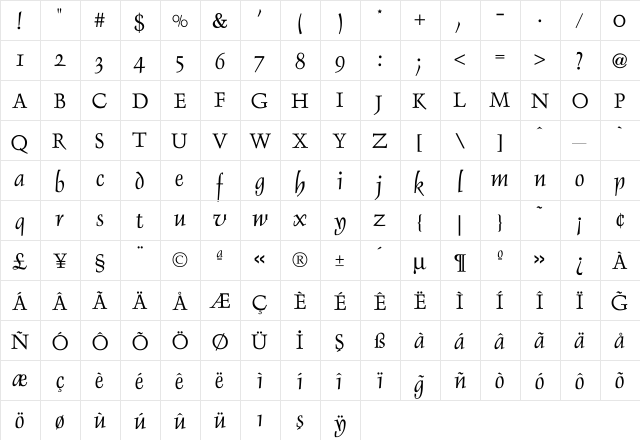
TrSah Dauphin-Normal Regular
Design Context for TrSah Dauphin-Normal Typeface
TrSah Dauphin-Normal takes a measured approach to typography — its balanced proportions and neutral character make it a reliable workhorse for both digital and print work.
Pro Tip: Use TrSah Dauphin-Normal in both headline and body roles to test its range before committing to a single application.